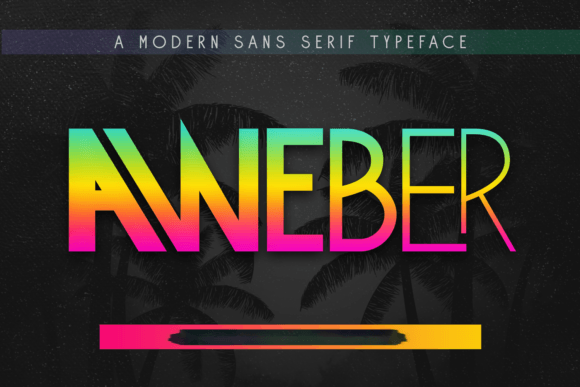
The Aweber Font: A Modern, Bold, and Adaptable Sans Serif Favorite
I’ll never forget the design project that led me to discover the Aweber font. I was working on a branding campaign for a trendy new coffee shop, and I was struggling to find the perfect font to capture their modern, yet elegant vibe. That’s when I stumbled upon Aweber – a game-changing sans serif font that instantly became my go-to. In this article, I’ll share my experience with Aweber, its features, and how to make the most of it in your designs.
An Honest Review of Aweber Font
Aweber has quickly become a favorite in my font collection, and here’s why:
• ✨ Modern and bold: Aweber’s sleek design makes it perfect for headlines, titles, and emphasis text.
• ✅ Adaptable: This font works beautifully in various contexts, from digital media to print materials.
• 🌈 Highly legible: Aweber’s clear and clean lines ensure that your text remains easy to read, even at smaller sizes.
• 💡 OpenType features: Aweber supports a range of OpenType features, including stylistic alternates and glyphs, giving you plenty of creative options.
While Aweber is an excellent font, it’s not without its quirks:
• 🤔 Limited italic options: Aweber’s italic styles are not as extensive as some other fonts, which might be a drawback for certain projects.
• ⚠️ Not ideal for body text: Due to its bold nature, Aweber is best suited for headings and titles rather than lengthy body text.
The Story Behind Aweber Font
Aweber’s design story begins with a passion for modern typography. Its creator aimed to craft a font that would be both bold and elegant, suitable for a wide range of design applications. Inspired by contemporary design trends and classic typography, Aweber was born – a versatile sans serif font that has quickly become a favorite among designers.
What type of font is Aweber? Aweber is a modern, bold sans serif font.
Is Aweber suitable for body text? No, Aweber is best suited for headings and titles due to its bold nature.
Does Aweber support OpenType features? Yes, Aweber supports a range of OpenType features, including stylistic alternates and glyphs.